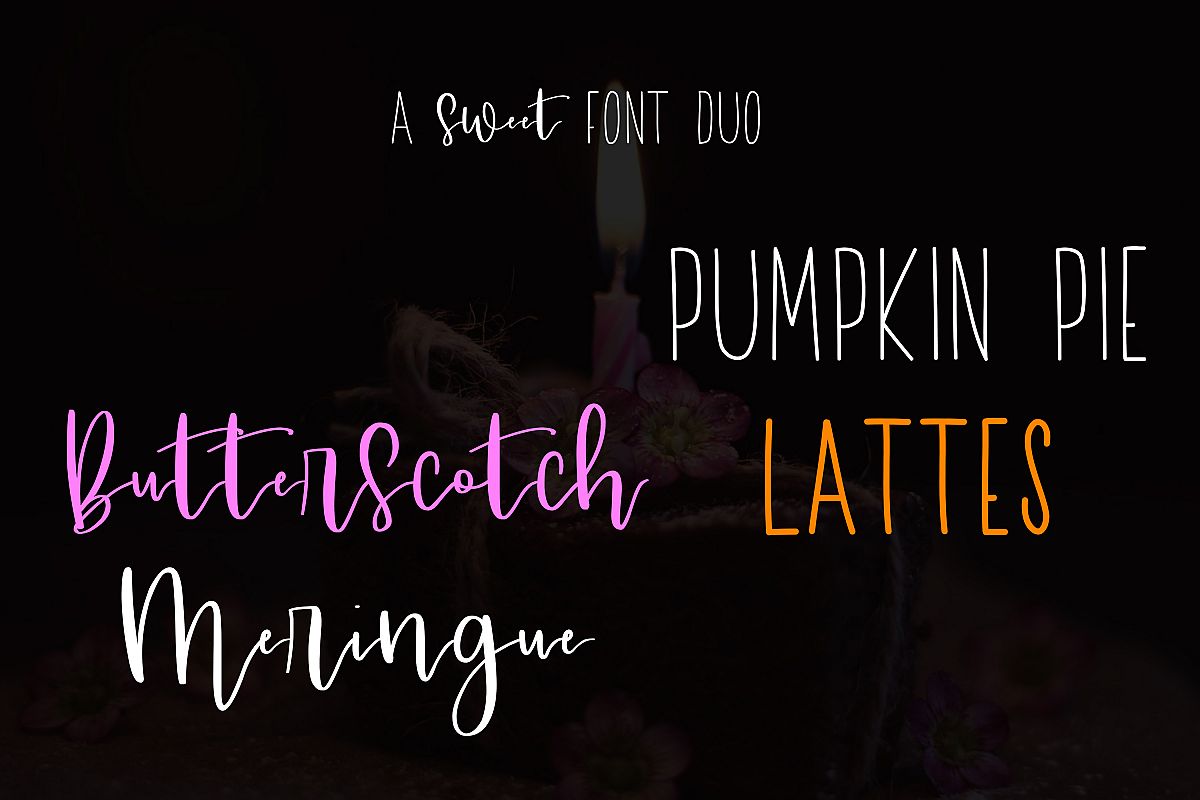
A Sweet Font Duo
A sweet duo perfect for all your needs.
Butterscotch Meringue is a cursive handwriting font made by yours truly! This font features thick downstrokes and light upstrokes, mimicking calligraphy techniques. This font is fun, quirky, elegant, and feminine at the same time, and can be used for so many projects,
Pumpkin Pie Lattes is a warm sans-serif font perfect for pairing with others. It is a small caps font with two weights: thick and thin.